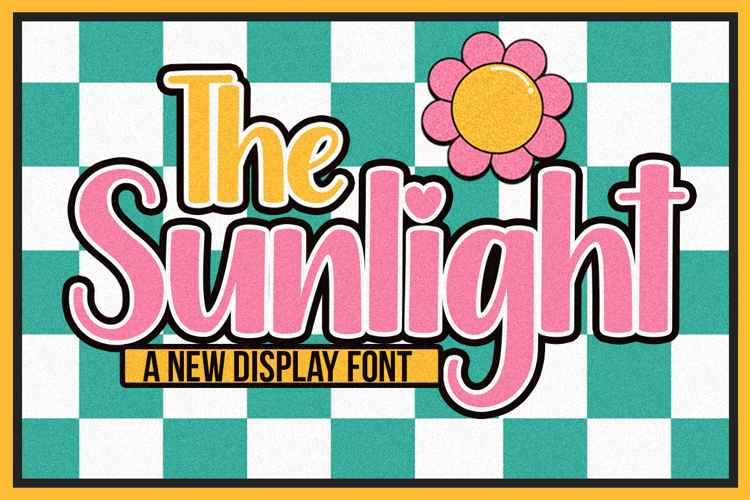
Delve into the enchanting allure of The Sunlight Display font, a unique fusion of contemporary Display characteristics and effortless elegance. With its uniquely polished finish, this font radiates a distinct visual charm, infusing energy and life into your designs. The Sunlight Display font, with its spellbinding allure, will elegantly elevate your projects, creating an unparalleled landscape of artistic creativity.